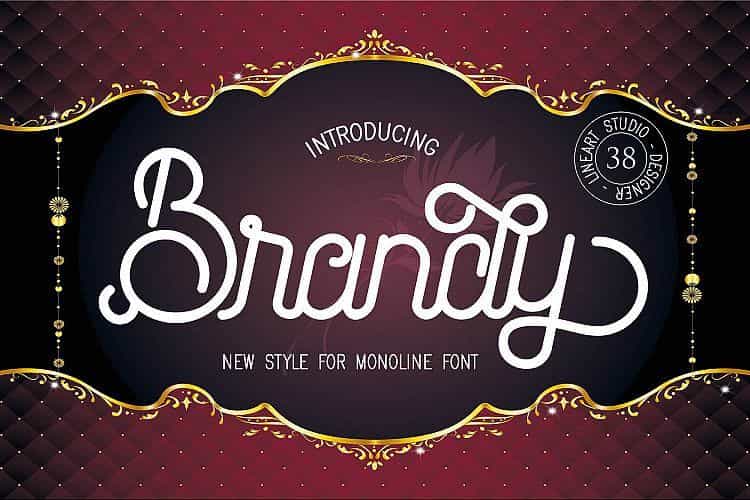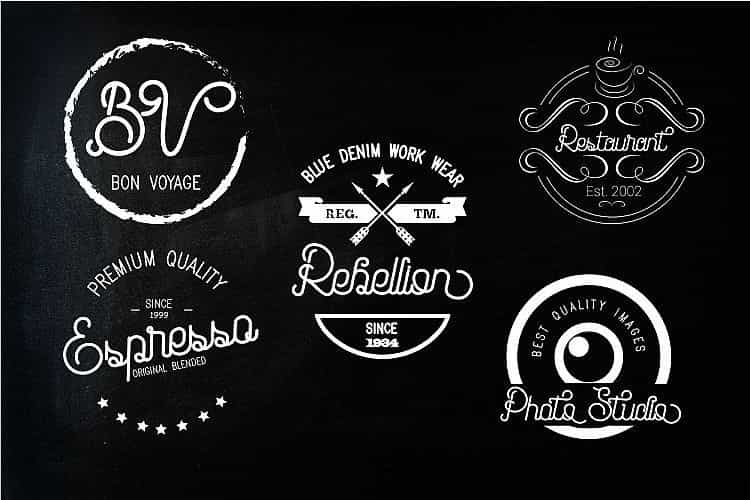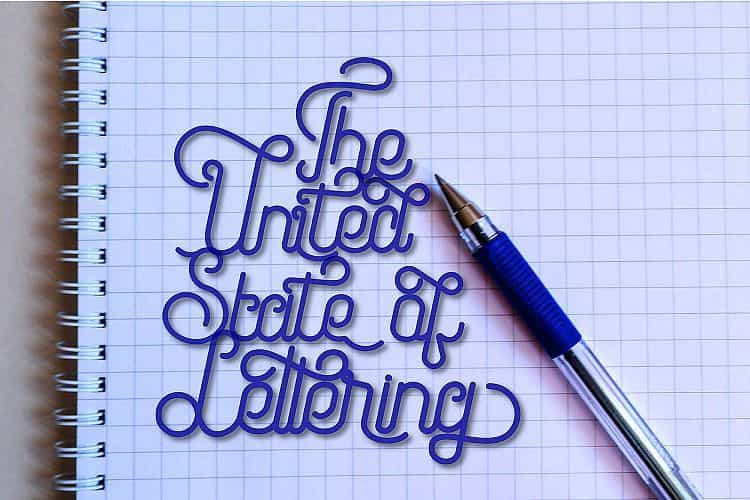
Discover Brandy Monoline Font Duo, part of the Sans Serif Calligraphy Retro Monoline collection—a versatile and unique font perfect for adding a personal touch to your projects. Download it for free and enjoy crafting designs with style, from invitations to social media posts. This font is available exclusively for personal use, giving you the freedom to create without limits. Unlock your creativity with Brandy Monoline Font Duo today!
Brandy Monoline Font Duo is here to say hello. This is a monoline font duo which is a font that was created in the style of typography. This old-fashioned font family consists of a single weight cursive script and a companion sans-serif. This is a creation and a sharing of 38-lineart.